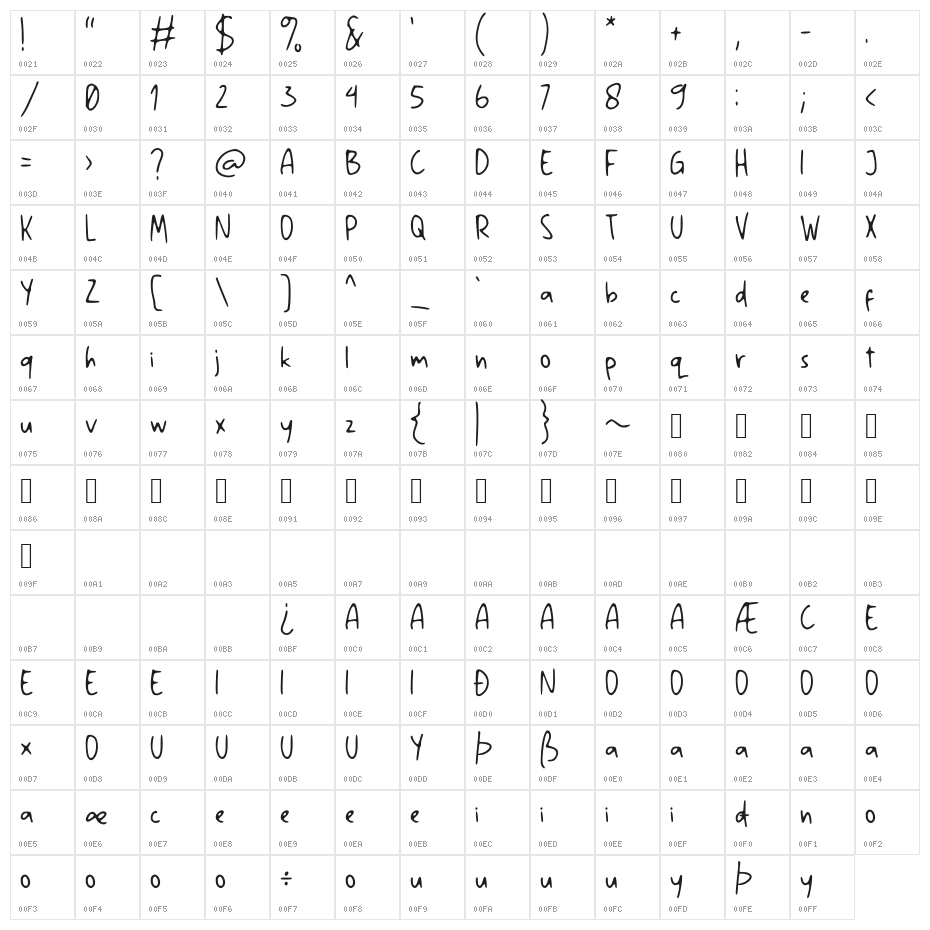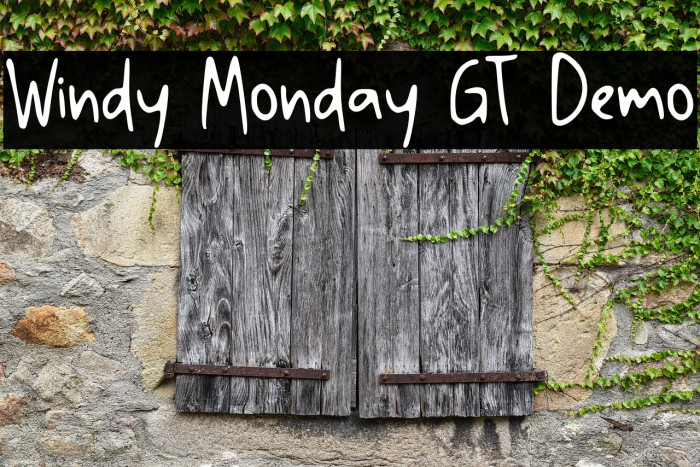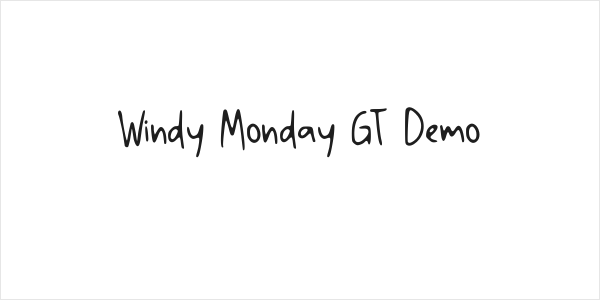
Windy Monday GT Demo Font
Windy Monday GT Demo Description
This font exudes a playful and casual handwritten style, characterized by its irregular and organic letterforms. The strokes are uneven, giving it a lively and dynamic appearance. The uppercase letters are bold and slightly elongated, while the lowercase letters maintain a consistent flow with a touch of whimsy. The numbers are rounded and maintain the playful essence of the alphabet. Special characters are creatively integrated, adding to the font's overall charm. This font is ideal for projects that require a personal and informal touch, such as greeting cards, children's books, or playful branding.
Overall StyleCasual, Playful
Use CaseHeadlines, Informal text, Creative projects
Proposed ProjectsGreeting cards, children's books, playful branding, casual invitations.